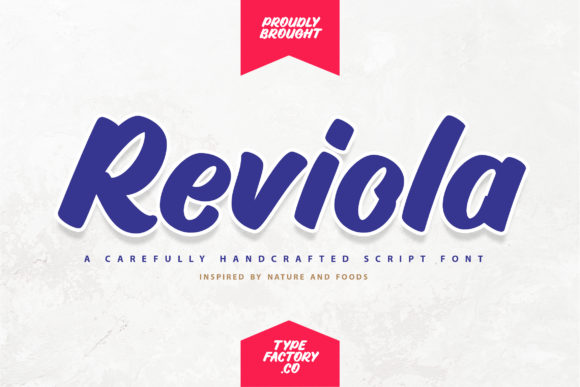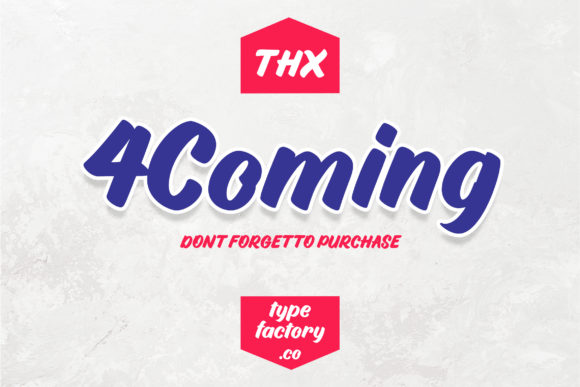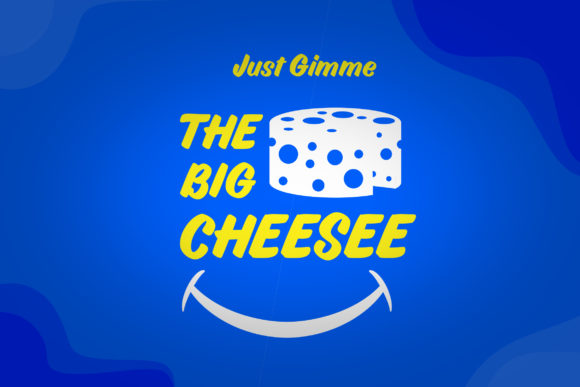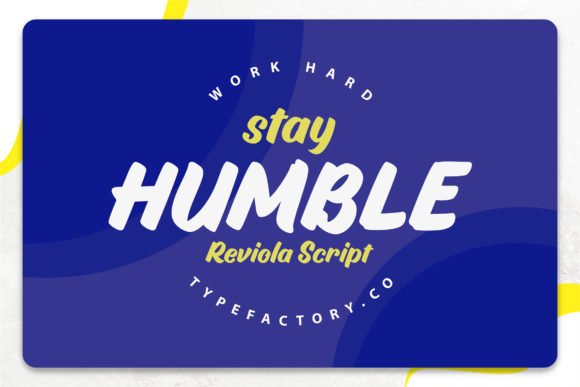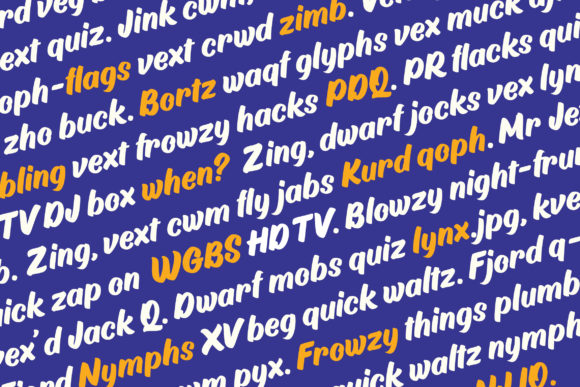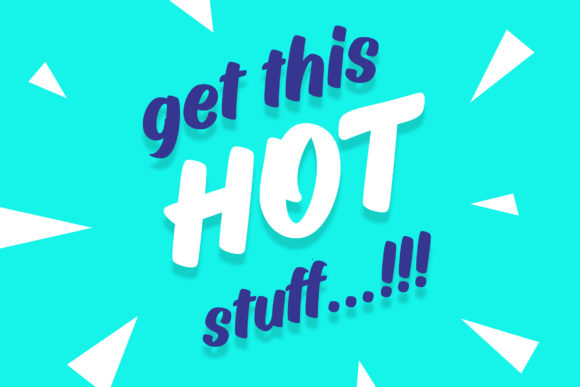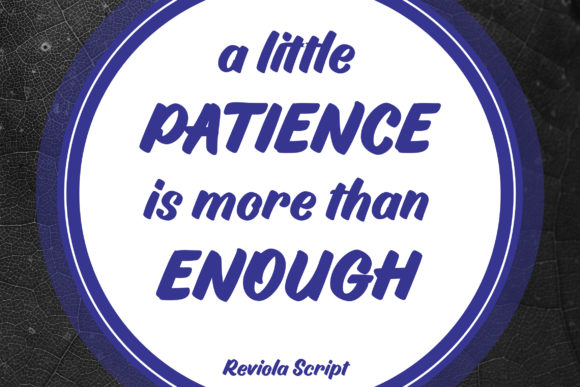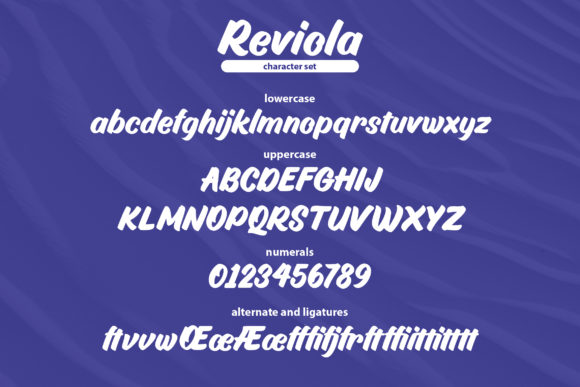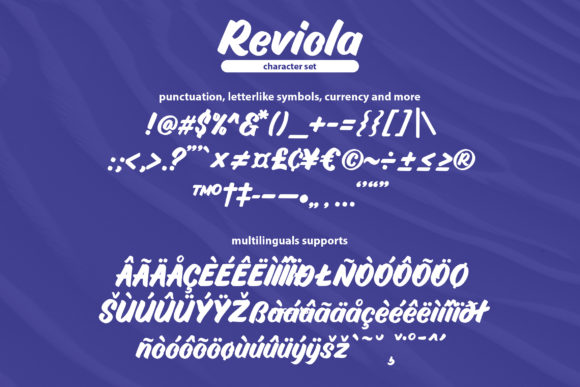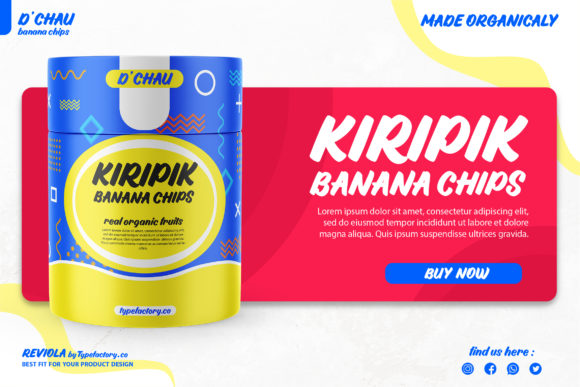
Reviola Font
About Reviola Font
Introducing Reviola: The Bold and Brushed Handwritten Font
Unleash the boldness and creativity with Reviola, a font that combines the charm of brushed handwriting with a strong and impactful style. With its versatility, Reviola is perfect for various purposes, making it suitable for logos, headings, t-shirts, letterhead, signage, labels, news, posters, badges, and so much more. Embrace the power of Reviola as you add a touch of dynamism and uniqueness to all your design projects.
Reviola’s bold and brushed appeal brings a sense of strength and energy to your designs. Its handwritten letterforms flow with a seamless intensity, making your text exude a powerful and commanding presence.
As a font that adapts to various purposes, Reviola becomes the go-to choice for a wide range of design themes. Its versatility ensures that it enhances your projects, creating an impact in every application.
Embrace the creativity of Reviola as you embark on your creative journey. Let it be the font that elevates your work, infusing a sense of boldness and dynamism in every project.
As you explore the possibilities of Reviola, you’ll find it to be a font that enhances your designs with ease. Its bold and brushed handwritten beauty transforms your work, ensuring that your creations leave a lasting impression.
So, let Reviola be the font that brings energy to your designs. Embrace its bold and impactful charm, and watch as your logos, headings, t-shirts, posters, and more come to life with a striking and commanding presence. With Reviola as your go-to font, your designs will resonate with creativity and uniqueness, captivating your audience and leaving a lasting impression. Embrace the boldness of Reviola and create designs that are truly remarkable and unforgettable!